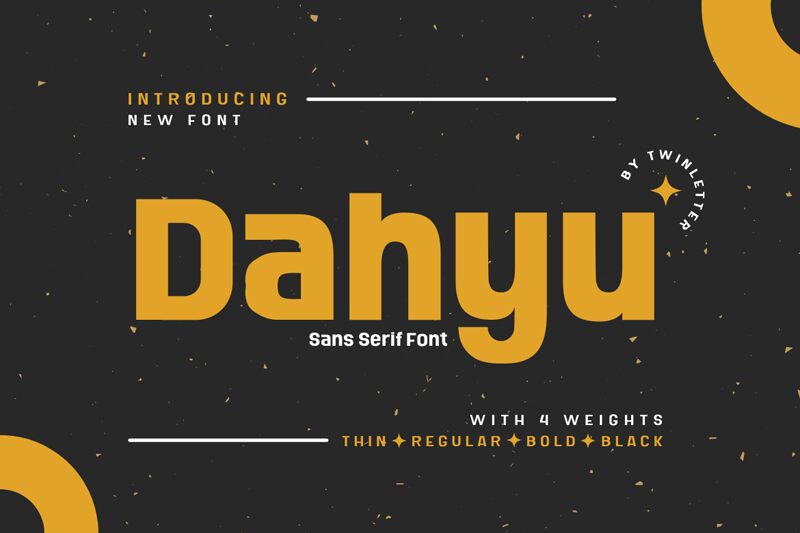
Dahyu Thin, the latest addition to the Dahyu font family designed by twinletter, is a sleek and modern sans-serif typeface perfect for any design project that requires an elegant touch. Its semi-light weight makes it versatile for use in print and digital mediums. The thin strokes of this typeface lend themselves well to graphic design projects such as logos, business cards and packaging. Meanwhile, its clean lines and easy readability make it an ideal choice for body text on websites or in editorial layouts. Whether you're designing a minimalist website or looking to add sophistication to your brand, Dahyu Thin is the perfect font choice.
Dahyu Thin